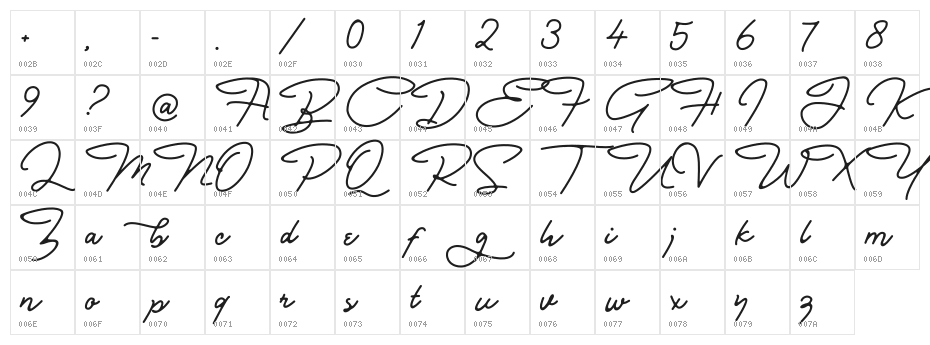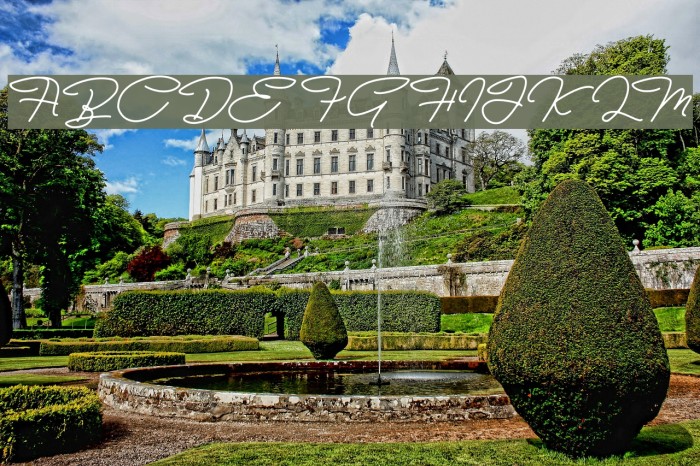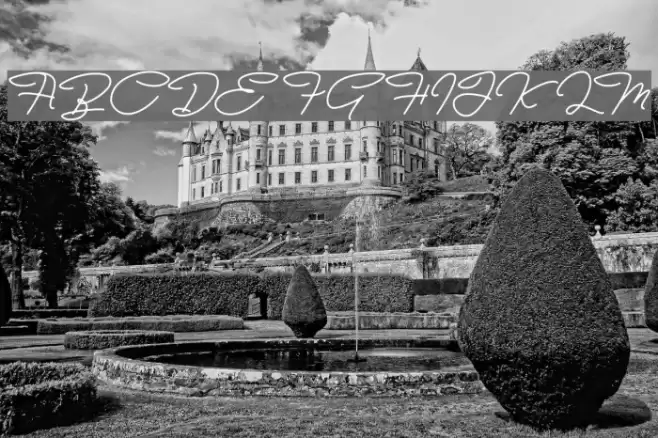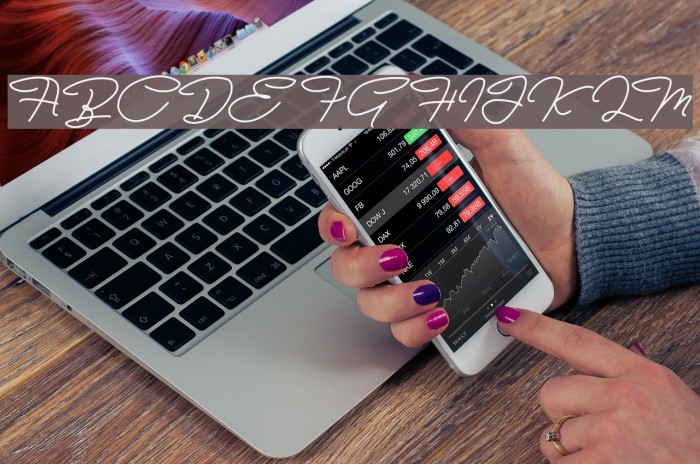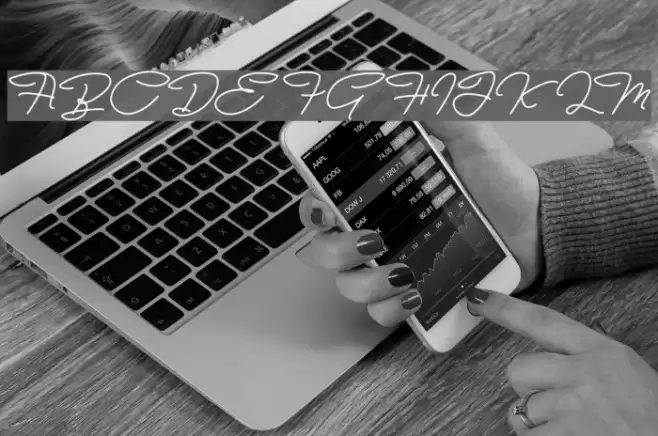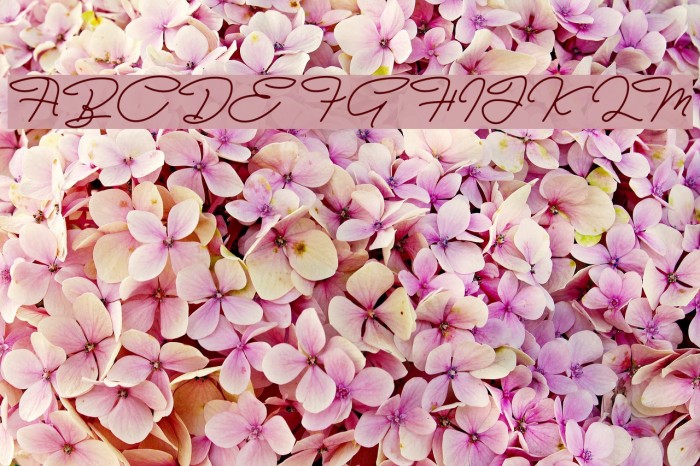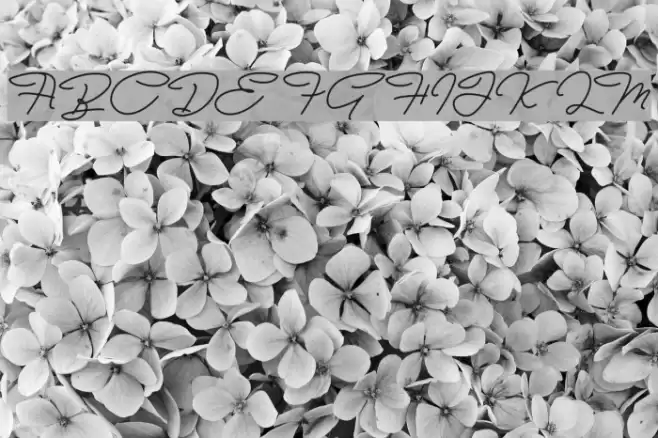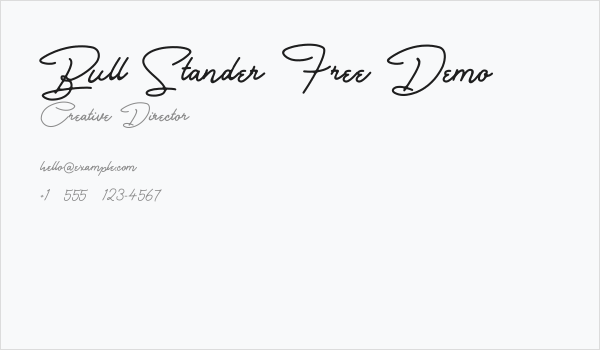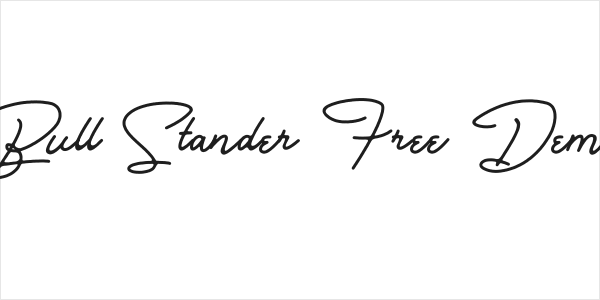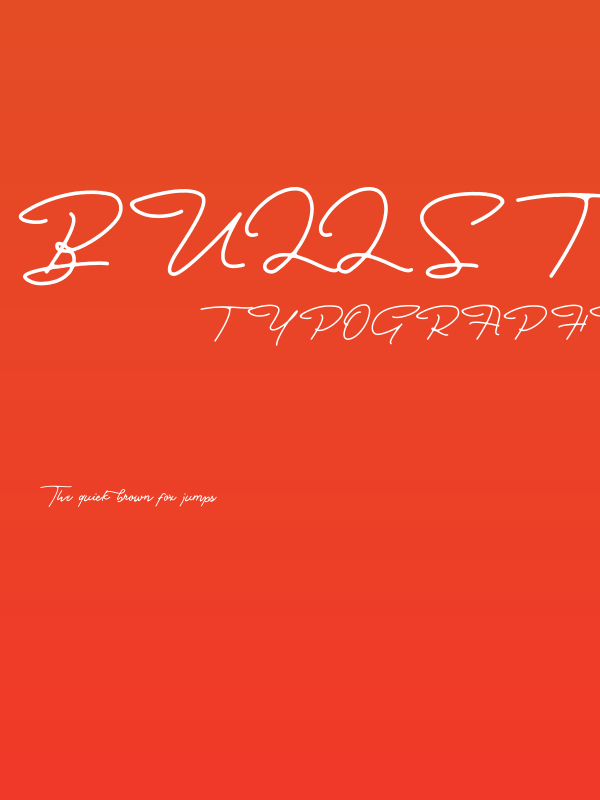
Bull Stander Free Demo Font
Bull Stander Free Demo Description
This font exudes a sophisticated and elegant script style, characterized by its fluid, cursive strokes and graceful curves. The uppercase letters are slightly more restrained, maintaining a consistent height and width, while the lowercase letters exhibit a more playful and dynamic flow. The numerals are clear and legible, maintaining the same cursive style, which adds a touch of elegance to numerical data. The special characters are thoughtfully designed to match the overall aesthetic, ensuring a cohesive look across all text elements. This font is perfect for projects that require a touch of class and sophistication, such as wedding invitations, formal event programs, or high-end branding materials.
Overall StyleElegant
Use CaseHeadlines, Invitations, Branding
Proposed ProjectsIdeal for wedding invitations, formal event programs, and luxury branding.